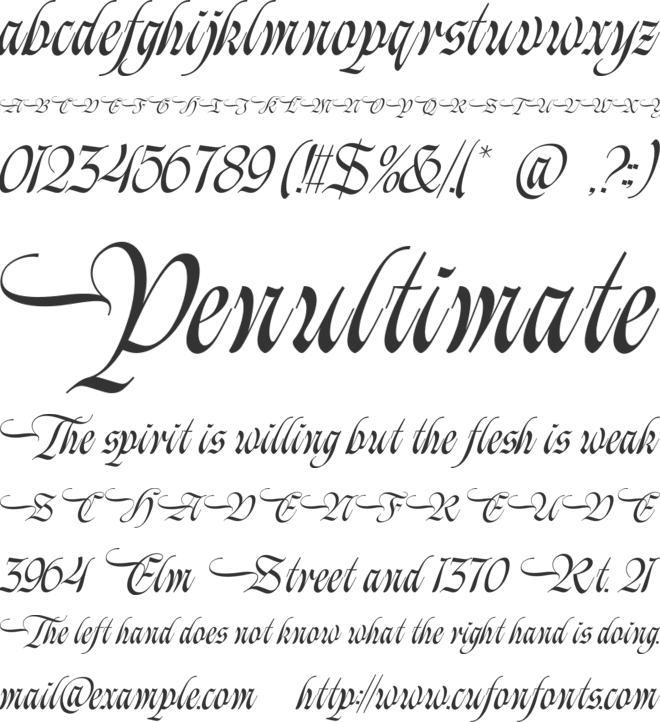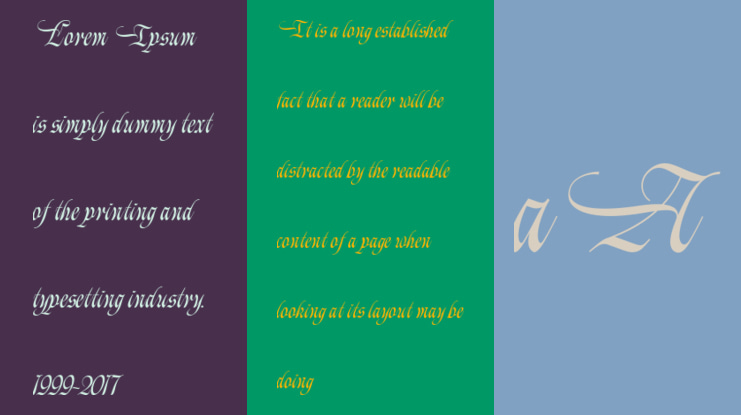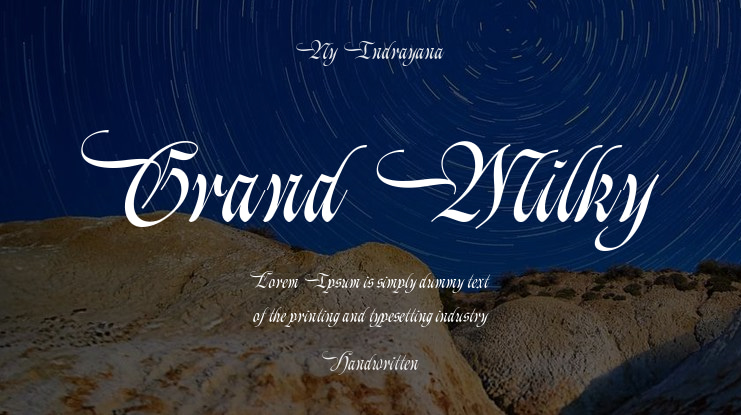
Grand Milky Font
Grand Milky Typeface - A Fierce and Passionate Blackletter Script
Introducing Grand Milky Typeface, a digital calligraphy masterpiece that fuses the strength and boldness of blackletter with the elegance of a free-flowing script. Designed to radiate a strong, masculine, and fearless aura, Grand Milky is the perfect choice for designers looking to make a bold statement.